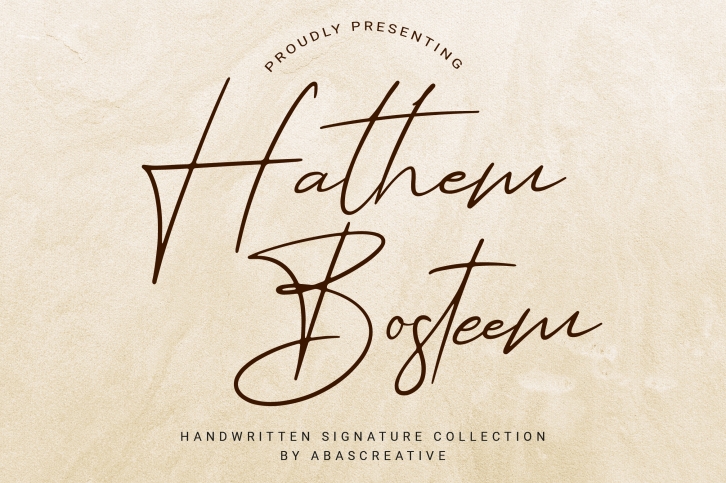
Hathem Bosteem is consisting of a fashionable signature-style script make looks elegant, classy and touch of luxury and stylish. This font was created to look as close to a natural handwritten script. Hathem Bosteem is perfect for branding projects, logo, wedding designs, social media posts, advertisements, product packaging, product designs, label, photography, watermark, invitation, stationery and any projects that need handwriting taste.